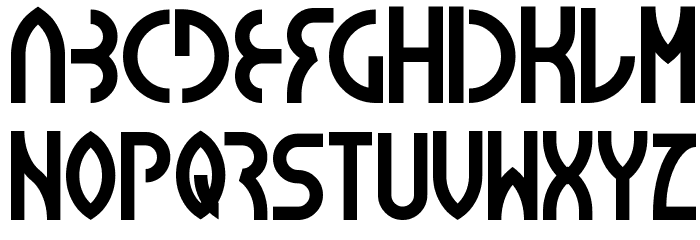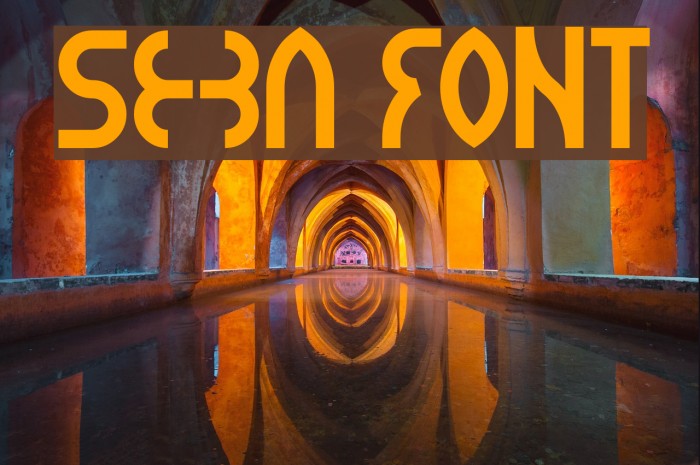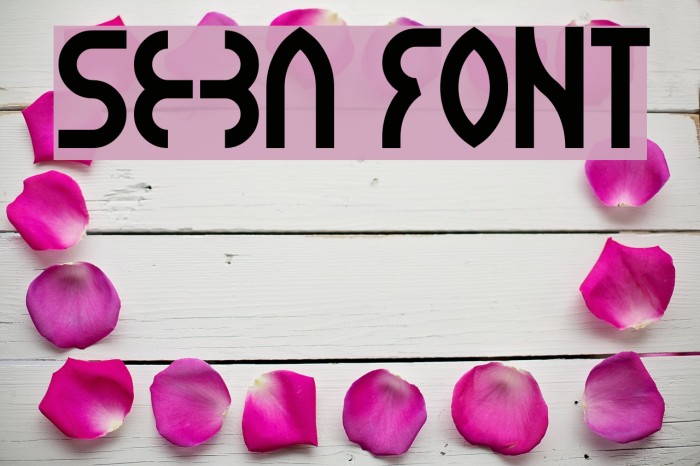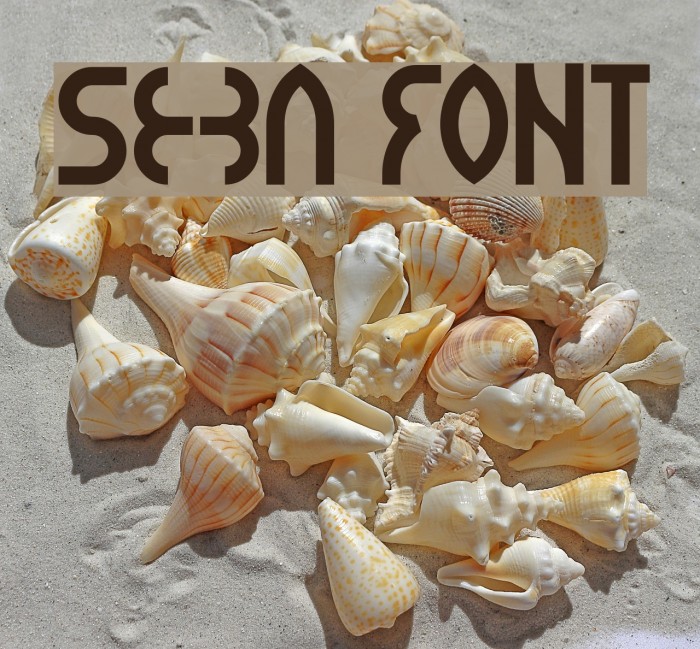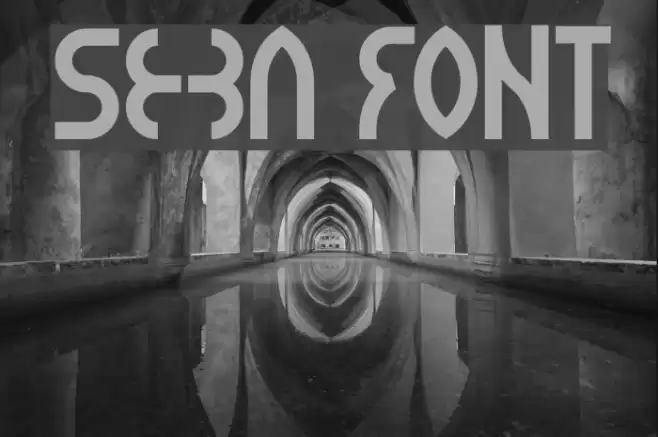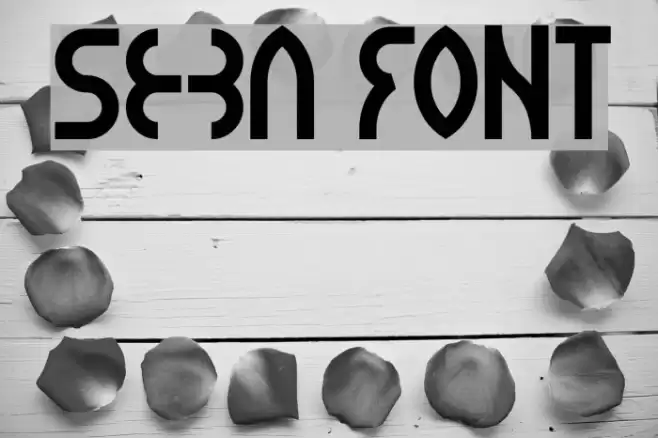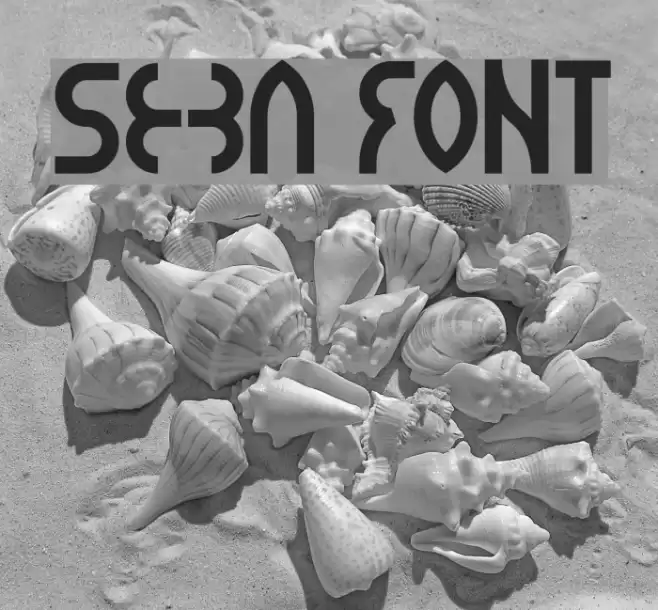
seba Font
This font features a bold and geometric design with strong, angular lines and a futuristic aesthetic. The characters are constructed with a mix of straight and curved elements, creating a dynamic and eye-catching appearance. The uppercase letters exhibit a consistent height and width, contributing to a uniform and structured look. The font's unique style is characterized by its sharp edges and distinct shapes, making it stand out in any design. The absence of serifs and the emphasis on geometric forms give it a modern and sleek feel. This font is ideal for projects that require a bold statement and a contemporary touch.
A bold, geometric font with a futuristic and modern aesthetic.
- Proposed Projects: Ideal for branding, posters, album covers, and any project needing a modern, bold statement.